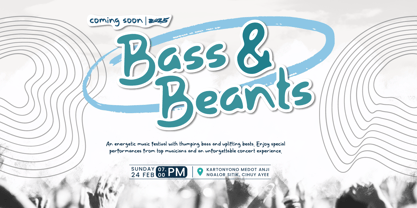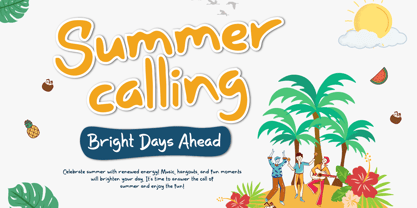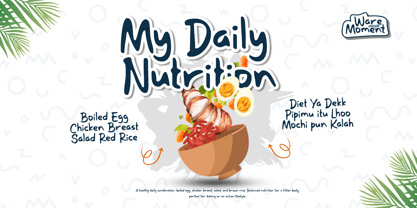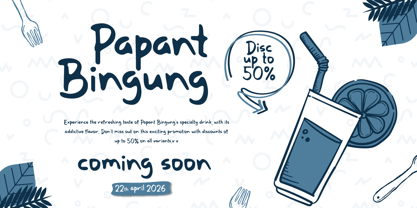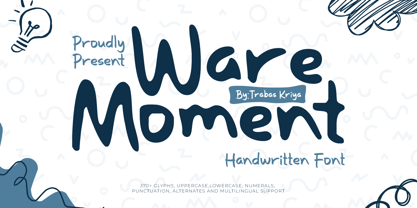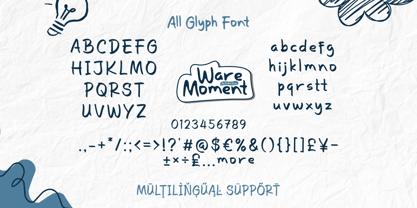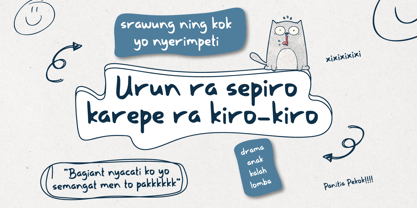
Ware Moment is a handwritten font that captures the warmth and spontaneity of natural handwriting. Each stroke is carefully crafted to feel personal and expressive, making your text look authentic and approachable. With its casual yet refined style, Ware Moment is perfect for projects that want to convey creativity, friendliness, and charm.
Whether used for branding, packaging, social media content, invitations, or personal notes, this font adds a touch of personality that makes every design feel more alive. The Regular version offers clean readability, while the Blury style introduces a playful, soft effect that enhances its handwritten character.
More than just typography, Ware Moment is about capturing emotions and turning words into memorable visuals. It invites your audience to connect not only with the message but also with the warmth behind it—making it a versatile choice for modern creative projects.